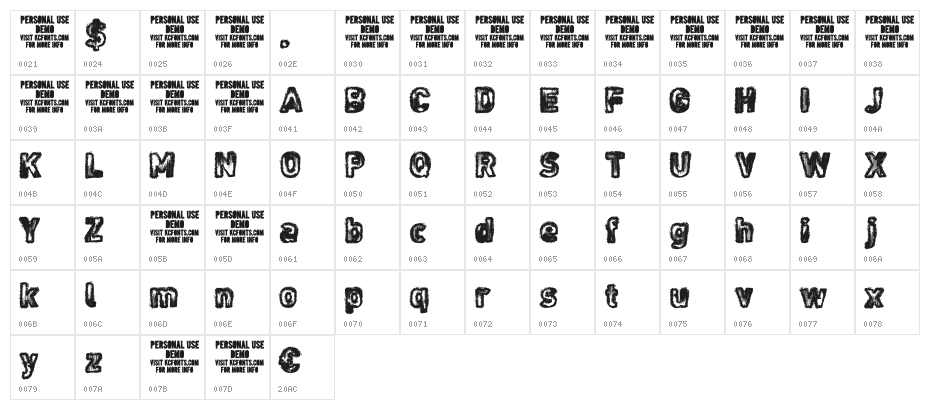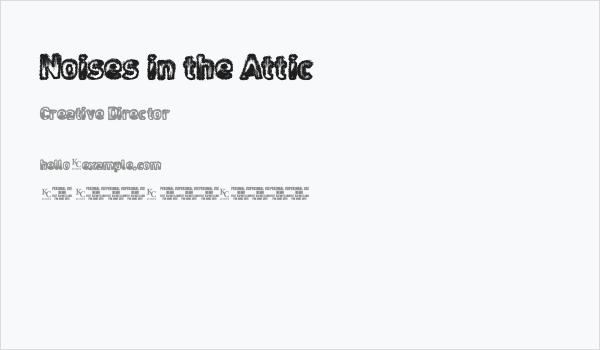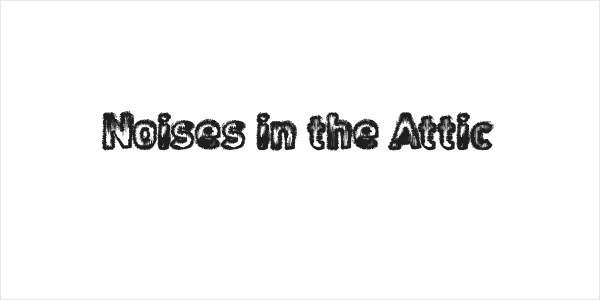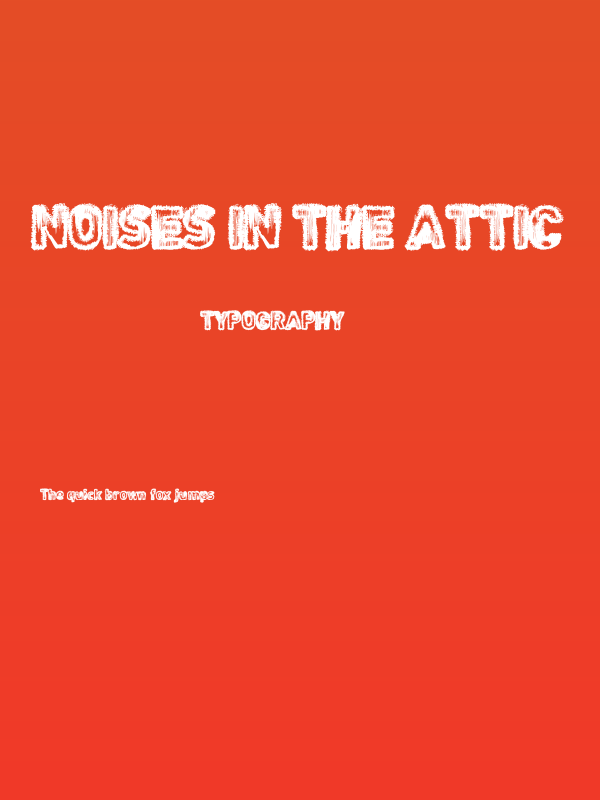
Noises in the Attic Font
Noises in the Attic Description
This font features a bold, textured style that mimics the appearance of rough brush strokes or distressed fabric. The uppercase and lowercase letters maintain a consistent width and height, creating a uniform look despite the chaotic texture. The numerals and special characters follow the same design, ensuring a cohesive appearance across all glyphs. The font's unique style makes it stand out, with each character appearing as if it has been hand-drawn with a thick, uneven brush. This gives the font a dynamic and energetic feel, suitable for projects that require a bold and artistic touch.